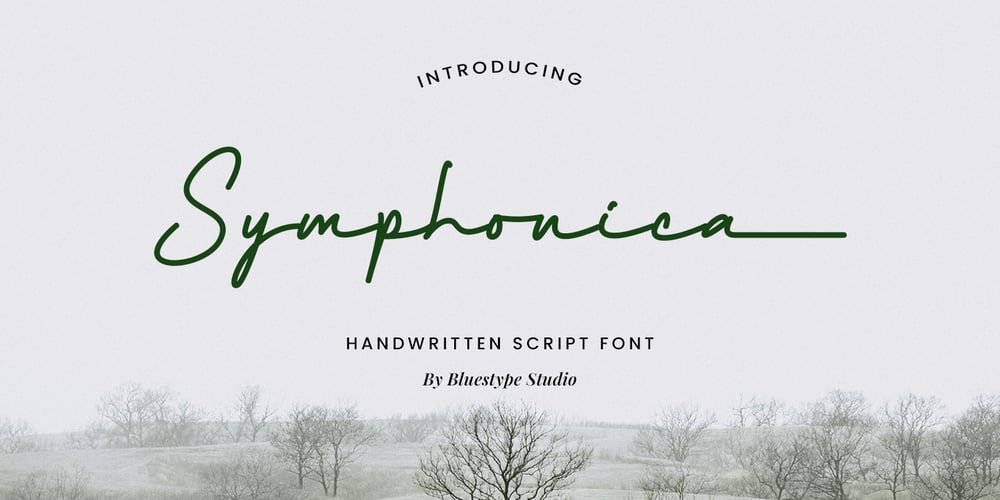
Symphonica Font Family was designed by Jefri Dwi Alfatah and published by Bluestype Studio. Symphonica contains 1 styles and family package options. Symphonica – a timeless handwritten font that exudes elegance and sophistication. Inspired by the fluid beauty of classic penmanship, Symphonica brings a touch of grace to every design. Perfect for wedding invitations, branding, logos, and heartfelt quotes, this font captures the essence of tradition while maintaining a modern charm.